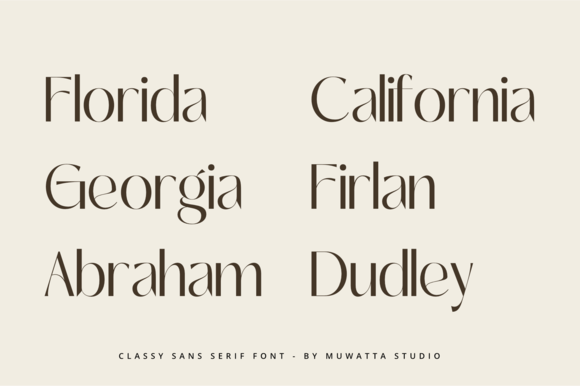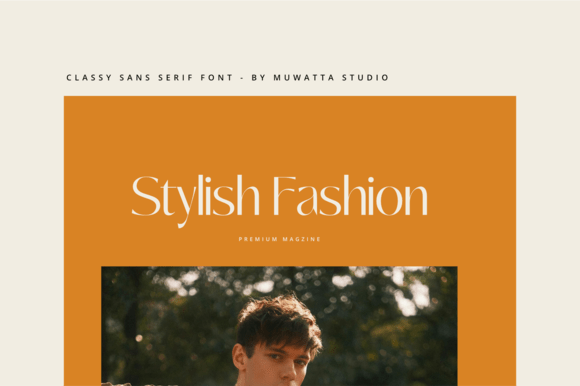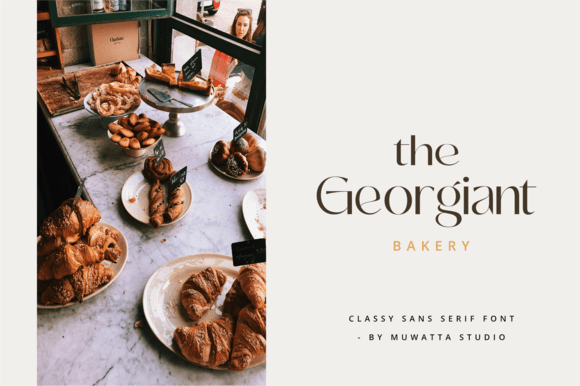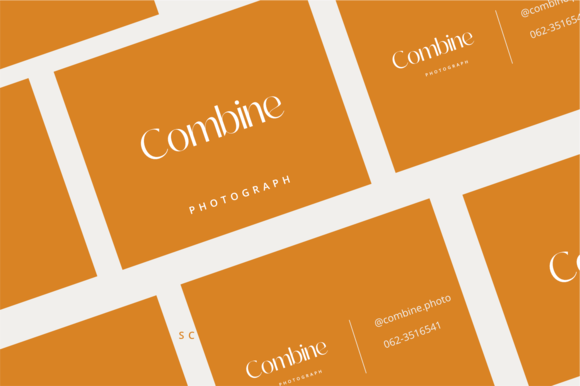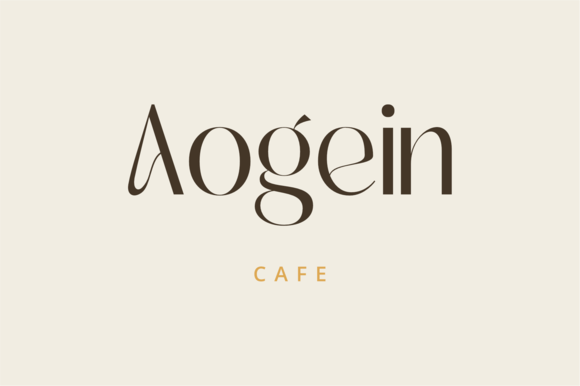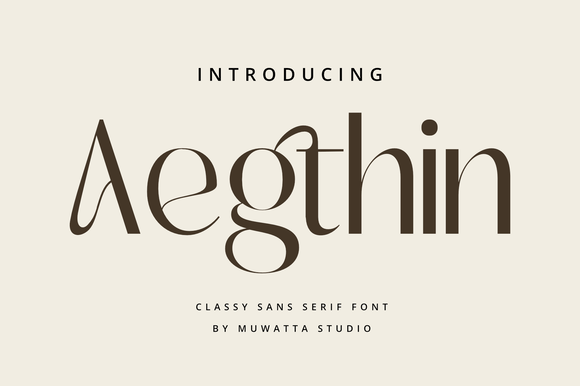
Aegthin Font: Elevate Your Brand with Elegant Simplicity
In the world of typography, fonts play a crucial role in shaping a brand’s identity. A well-chosen font can instantly convey a brand’s personality, values, and aesthetic. For designers and crafters looking for a font that embodies classic elegance and modern simplicity, Aegthin is an excellent choice. This sans serif font is designed to provide a luxurious feel without being over the top, making it perfect for brands that want to appear sophisticated yet contemporary.
The Design Philosophy of Aegthin
Aegthin is a thoughtfully designed sans serif font that strikes a balance between classic elegance and modern simplicity. Its clean lines, well-proportioned letterforms, and subtle details work together to create a luxurious feel that is both refined and understated. The font’s design philosophy is centered around the idea of creating a sense of sophistication without being too flashy or over-the-top. This makes Aegthin an ideal choice for brands that want to convey a sense of elegance and refinement.
Key Features of Aegthin
So, what sets Aegthin apart from other fonts? Here are some of its key features:
- Clean Lines: Aegthin’s clean lines and minimalist design make it perfect for brands that want to appear modern and sleek.
- Well-Proportioned Letterforms: The font’s letterforms are carefully crafted to ensure that each character is well-proportioned and visually appealing.
- Subtle Details: Aegthin’s subtle details, such as the slight rounded edges and diagonal stress, add a touch of elegance and sophistication to the font.
- Luxurious Feel: The font’s overall design creates a luxurious feel that is perfect for brands that want to appear high-end and refined.
Use Cases for Aegthin
Aegthin is a versatile font that can be used in a variety of contexts. Here are some use cases where Aegthin excels:
- Branding: Aegthin is perfect for brands that want to create a sophisticated and elegant visual identity.
- Packaging: The font’s clean lines and luxurious feel make it ideal for packaging design, particularly for high-end products.
- Advertising: Aegthin’s elegant and refined design makes it perfect for advertising, particularly for luxury brands.
- Digital Media: The font’s modern simplicity and clean lines make it well-suited for digital media, including websites, social media, and mobile apps.
Why Choose Aegthin?
With so many fonts available, why choose Aegthin? Here are some reasons why Aegthin stands out:
- Unique Design: Aegthin’s unique design sets it apart from other sans serif fonts, making it a great choice for brands that want to stand out.
- Versatility: The font’s versatility makes it suitable for a wide range of contexts, from branding to packaging to digital media.
- Elegance: Aegthin’s elegant design makes it perfect for brands that want to convey a sense of sophistication and refinement.
- Legibility: The font’s clean lines and well-proportioned letterforms ensure that it is highly legible, even at small sizes.
| Author | Muwatta Studio |
In conclusion, Aegthin is a sans serif font that combines classic elegance with modern simplicity. Its clean lines, well-proportioned letterforms, and subtle details make it perfect for brands that want to appear sophisticated yet contemporary. With its versatility, unique design, and elegance, Aegthin is an excellent choice for designers and crafters looking for a font that will elevate their brand’s visual identity.